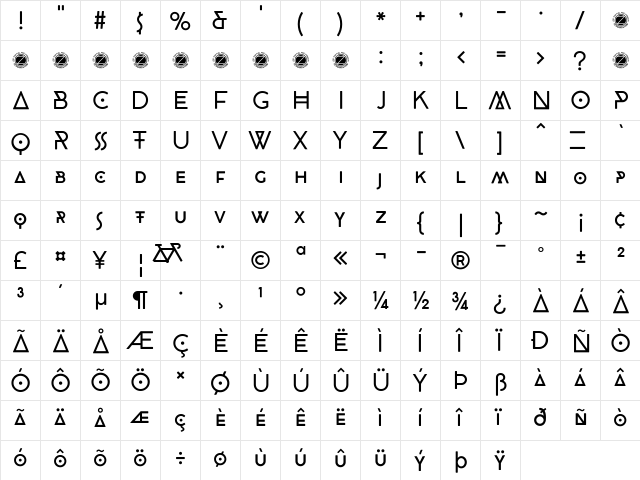
CocoBikeR Regular
| Foundry | Studio Kmzero |
| Designer | Cosimo Lorenzo Pancini |
Design Context for CocoBikeR Typeface
CocoBikeR is a composed and adaptable typeface that performs quietly and consistently across a wide range of design contexts.